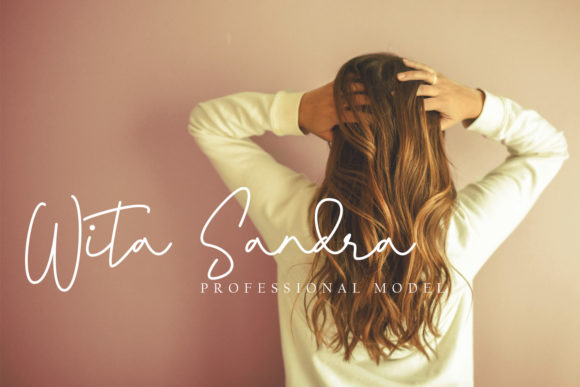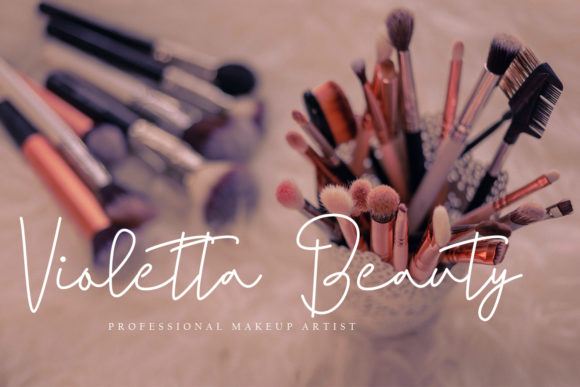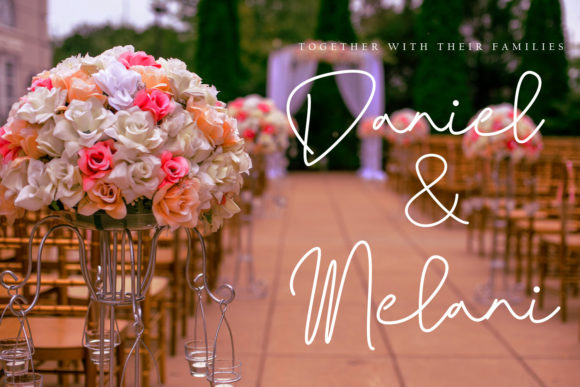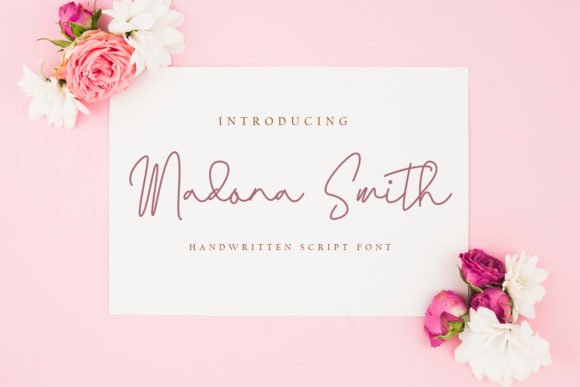
Introduction to Madona Smith Font
Madona Smith is a magical script font carefully created with a touch of elegance.
This is a beautiful combination of timeless elegance and authentic calligraphy It will elevate a wide range of design projects to the highest level, be it branding, headings, wedding designs, invitations, signatures, logos, labels, and much more.
Key Features of Madona Smith Font
Why Choose Madona Smith Font?
Madona Smith Font offers exceptional quality and versatility, making it a valuable addition to your design toolkit. Whether you’re creating for personal projects or commercial use, Madona Smith Font delivers professional results.